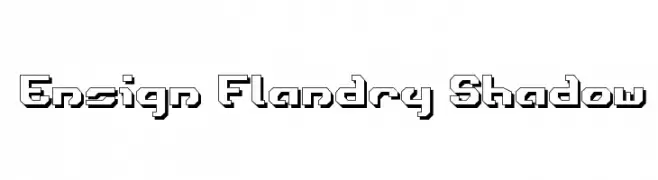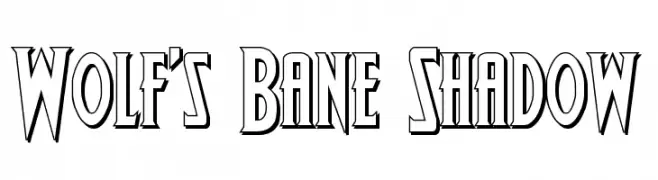
A bold, geometric font with a futuristic and industrial design.
( Fonts by ShyFonts )
A bold, geometric oblique font with a shaded 3D effect.
( Fonts by ShyFonts )
A bold, geometric font with a 3D shaded effect, ideal for modern and digital designs.
A bold, playful font with a 3D shadow effect, perfect for eye-catching designs.
( Fonts by Rick Mueller )
A playful, textured font with bold, rounded shapes and intricate patterns.
A bold, playful font with a 3D shadow effect, perfect for attention-grabbing designs.
( Fonts by ShyFonts )
A bold, geometric font with a futuristic, outlined design.
A bold, shadowed decorative font with strong visual impact.
A bold, shaded, italicized font with a futuristic, three-dimensional style.
A bold, futuristic italic font with a 3D outlined style.
A bold, decorative font with a unique inline design, perfect for impactful headlines.
A bold, geometric font with parallel lines and a retro-futuristic style.
A dynamic, cursive script font with an italicized, handwritten style.
A bold, playful 3D font with thick outlines and a comic book style.
( Fonts by Daniel Gauthier )
A bold, layered font with a three-dimensional effect and rounded edges.
( Fonts by ShyFonts )
A bold, retro-inspired font with a unique shaded, three-dimensional effect.
( Fonts by ShyFonts )
A retro-styled font with a shaded, three-dimensional effect and bold, slanted characters.
( Fonts by ShyFonts )
A retro-inspired outline font with geometric precision and a modern twist.
( Fonts by ShyFonts )
A bold, geometric font with a shaded, three-dimensional effect.
( Fonts by ShyFonts )
A bold, oblique font with a shaded outline for a dynamic, three-dimensional effect.
A bold, three-dimensional font with vintage flair and strong shadow effects.
A bold, retro font with a shadow effect, perfect for vintage-themed designs.
( Fonts by Daniel Gauthier )
A bold, geometric font with outlined characters and a modern style.
( Fonts by ShyFonts )
A bold, hand-drawn font with a playful grunge style and shadow effect.
A bold, 3D font with a playful, dynamic style and shadow effects.
A bold, geometric font with a 3D shadow effect, ideal for impactful designs.